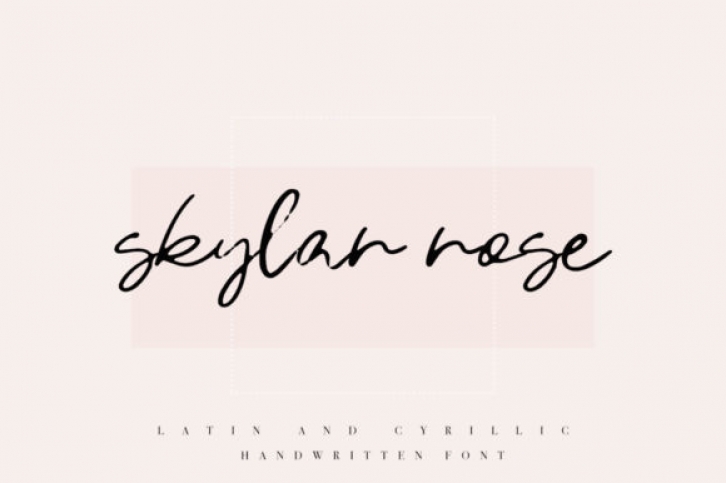
Skylar Rose is an incredibly relaxed, down to earth handwritten font. Its casual charm makes it appear friendly and versatile. Whether you’re looking for fonts for Instagram or calligraphy scripts for DIY projects, Skylar Rose will turn any creative idea into a true piece of art!